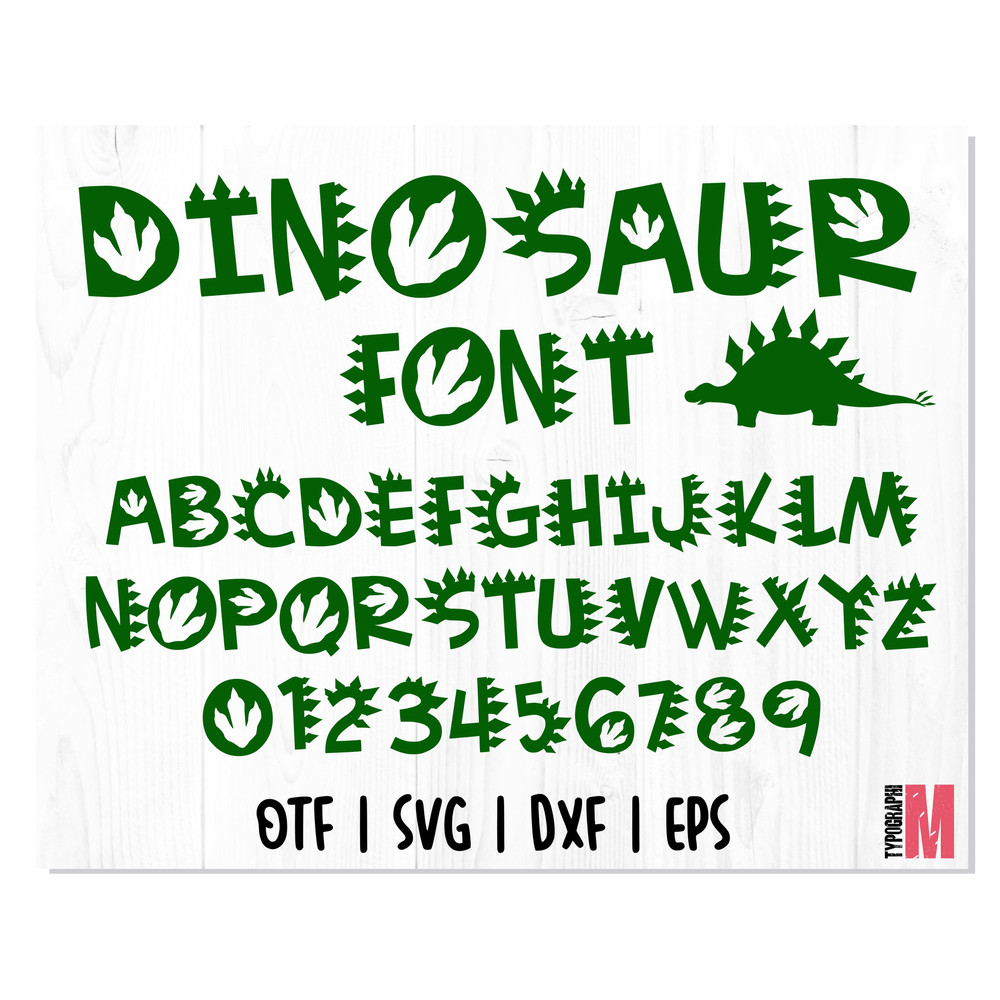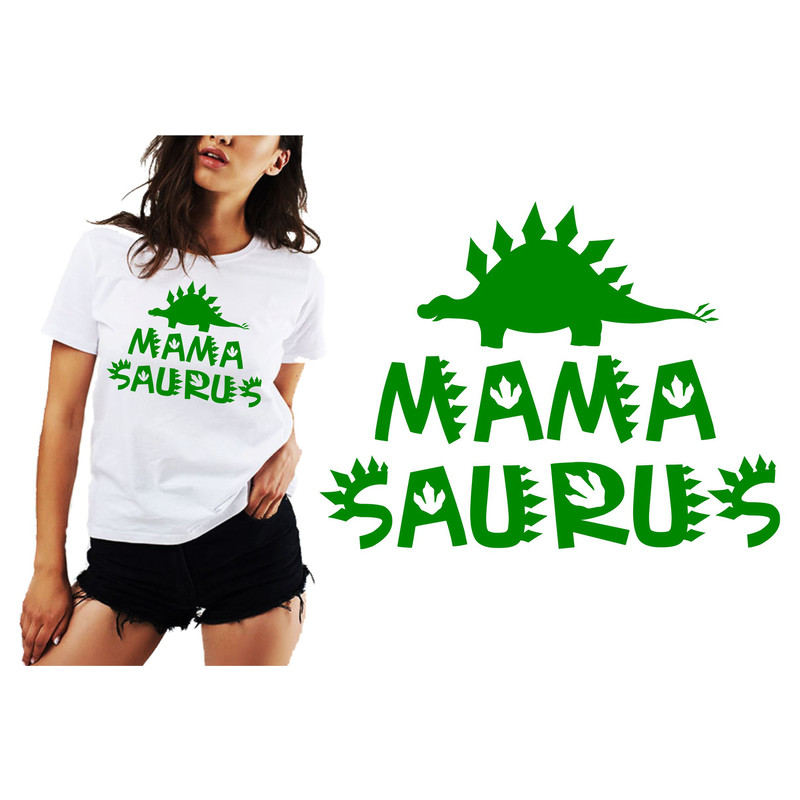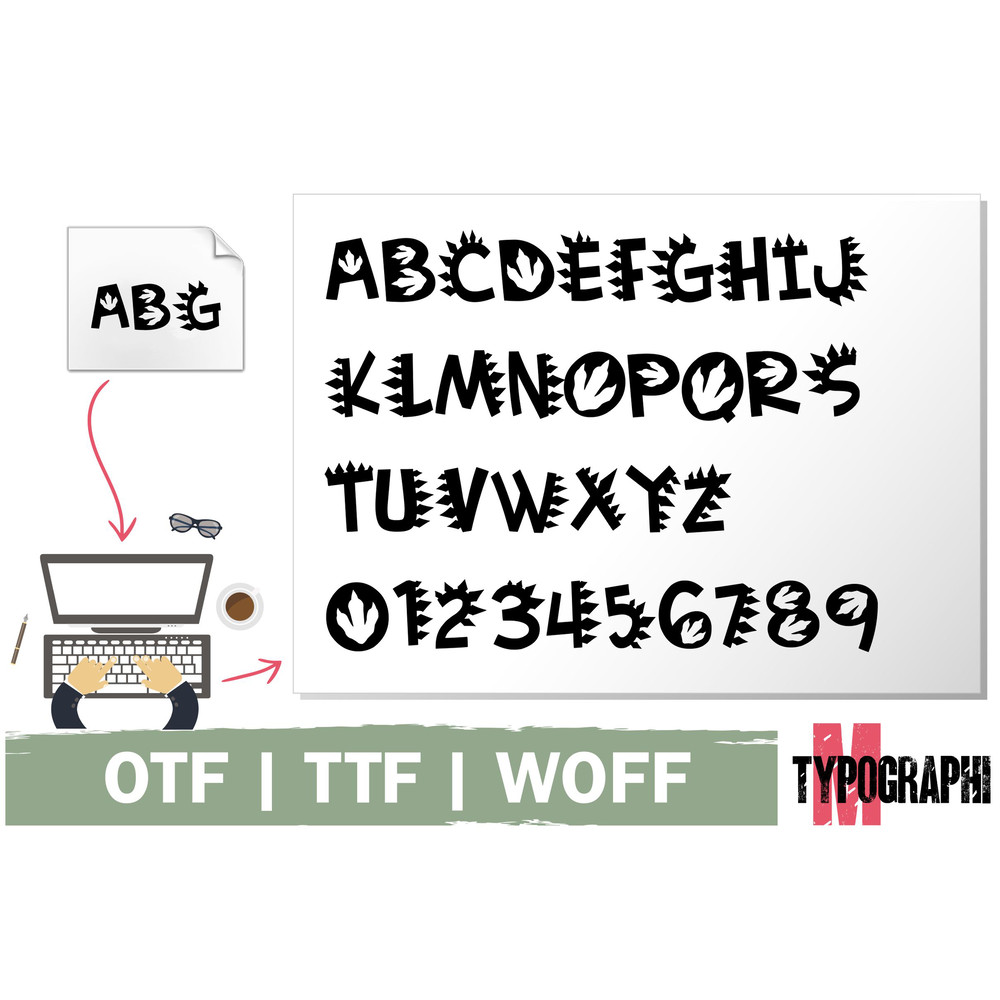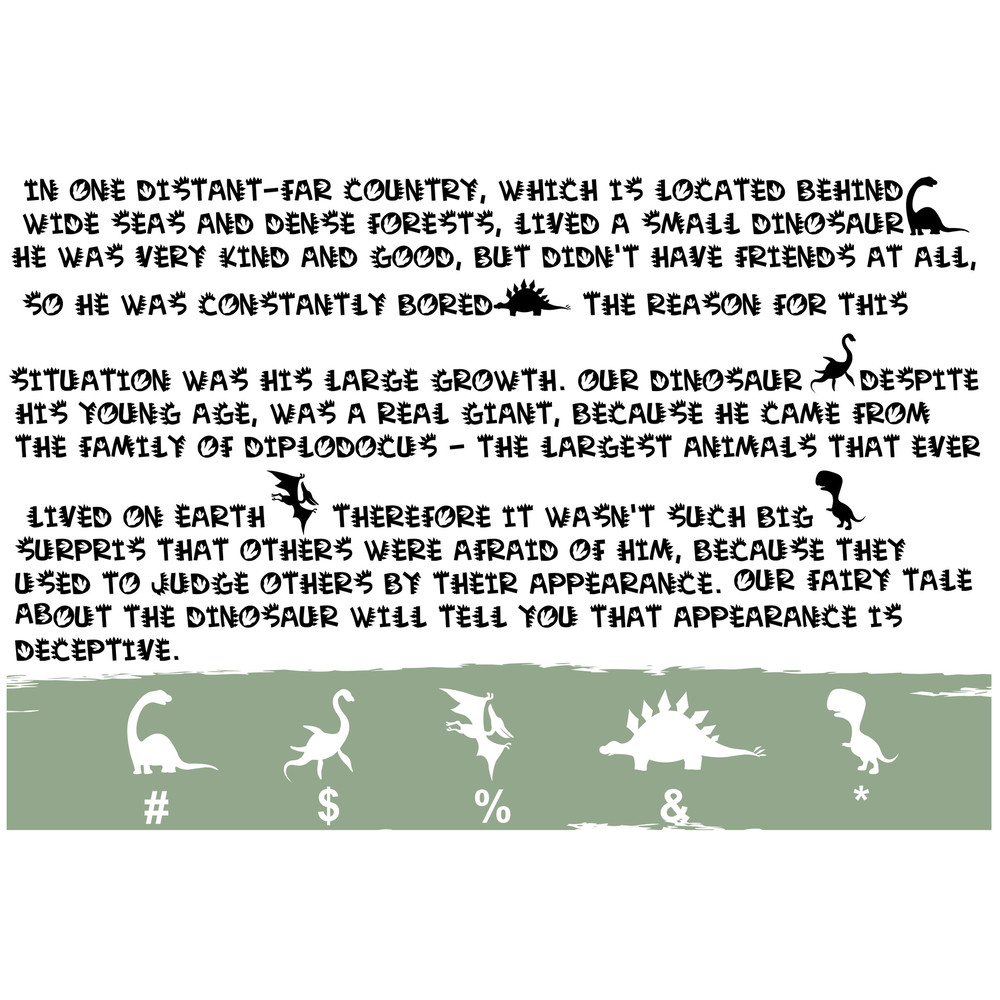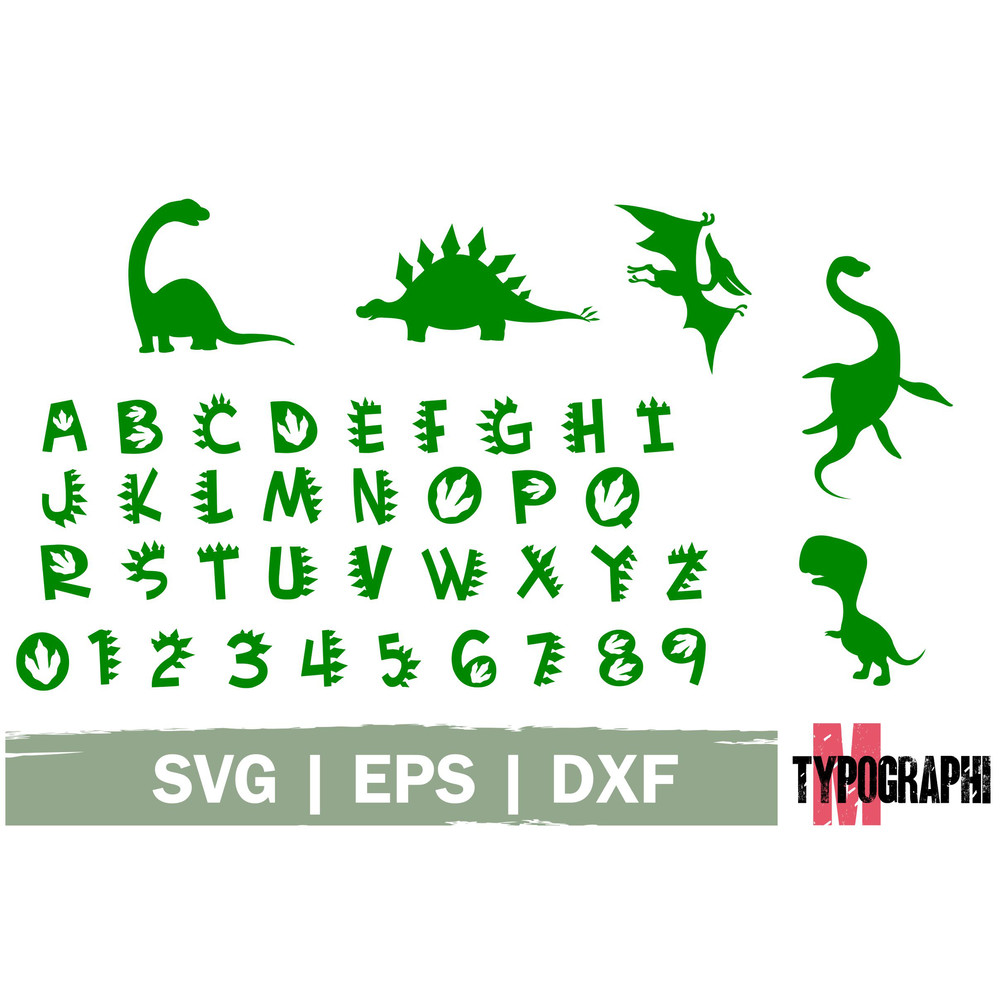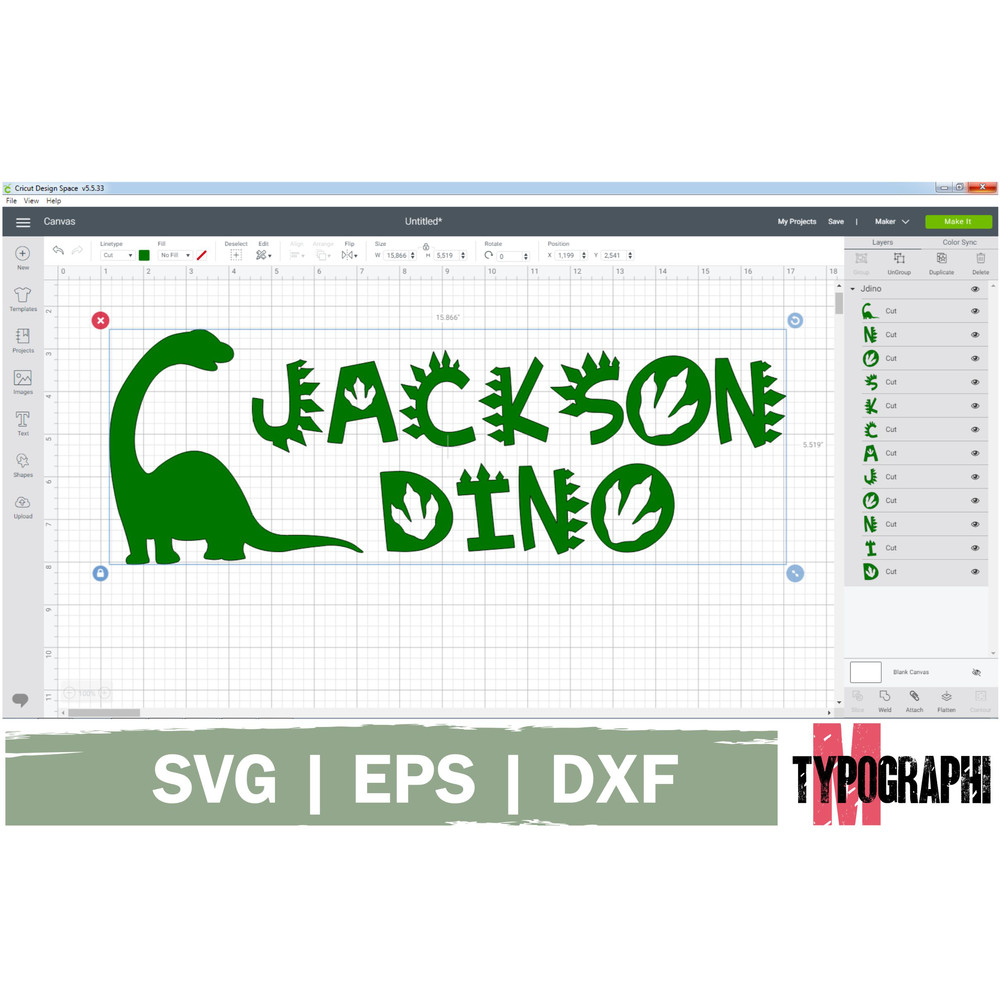
Dinosaur is an adventurous decorative font that features elements of anyone’s favorite dinosaurs. Use it to add a playful and dynamic feel to any design project!